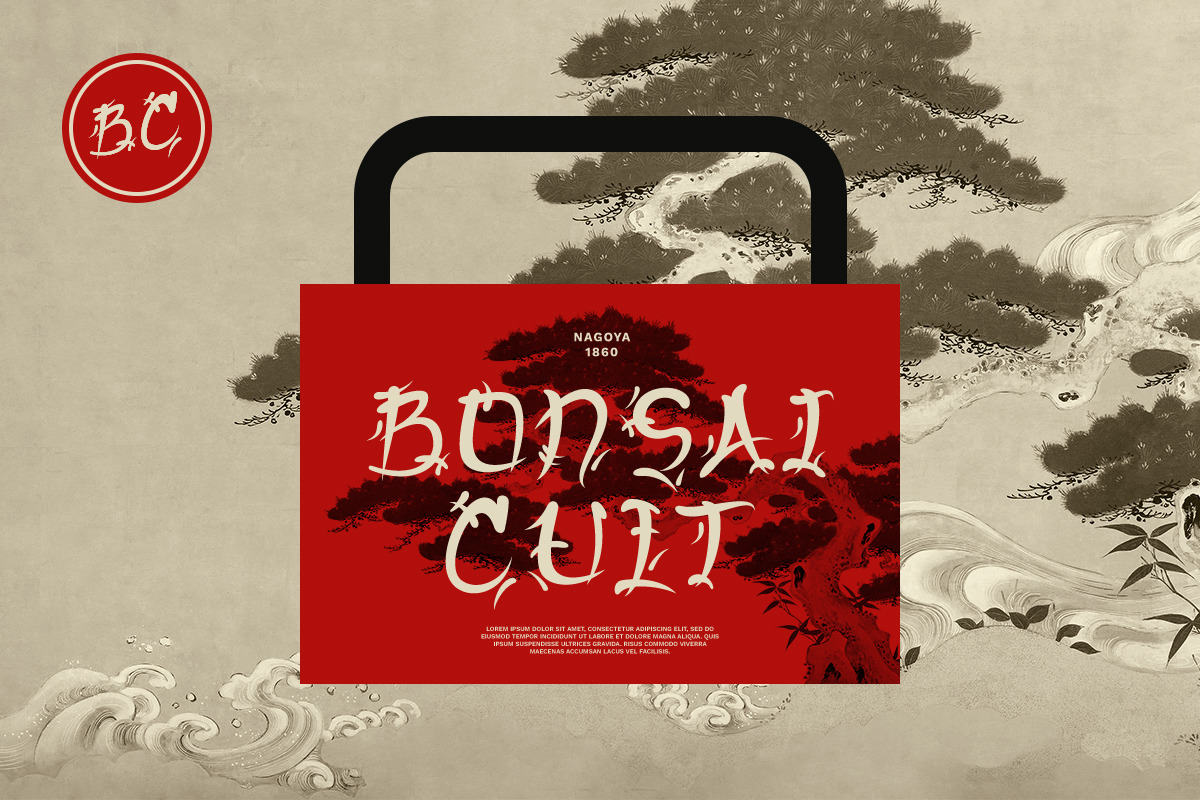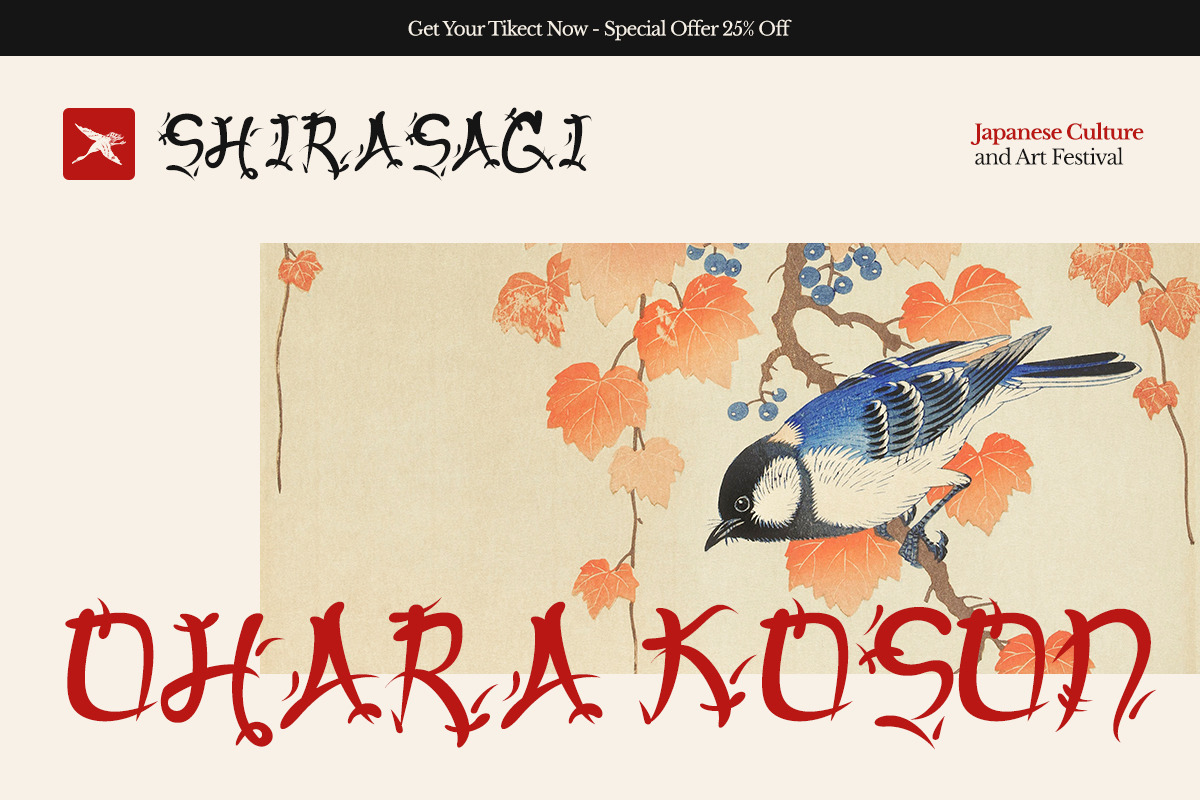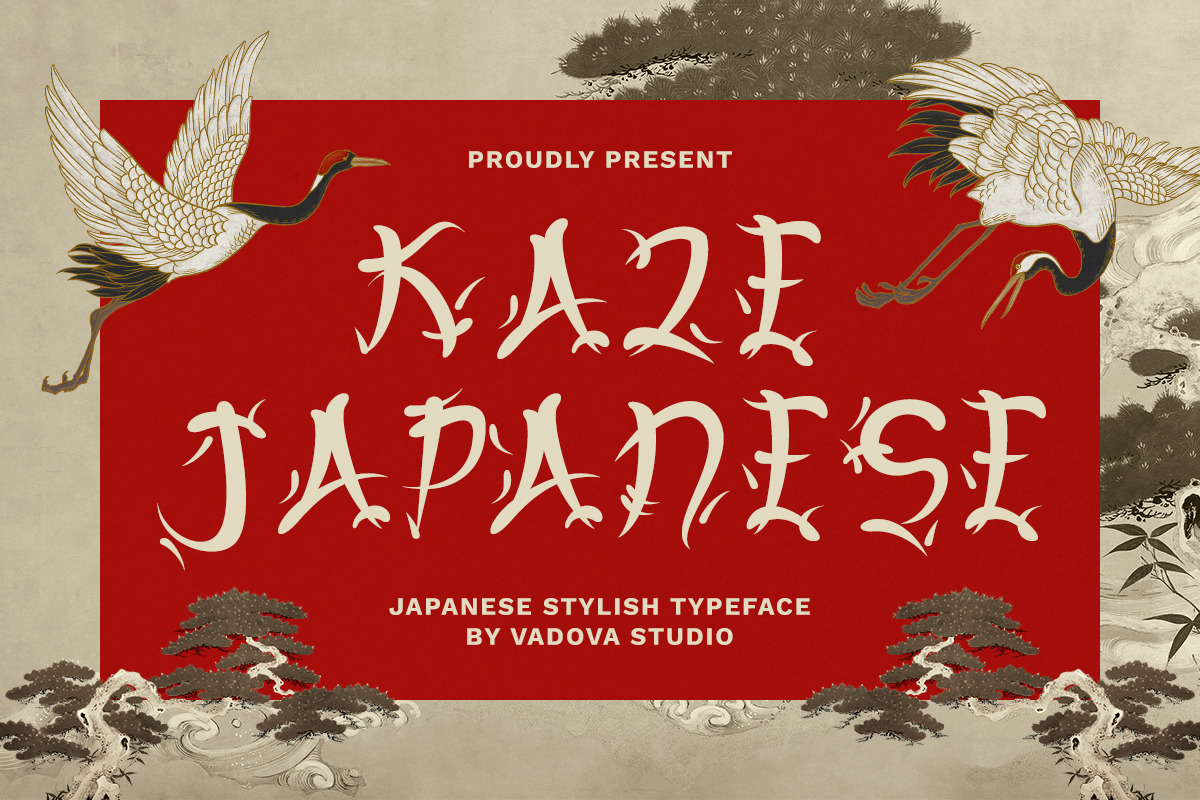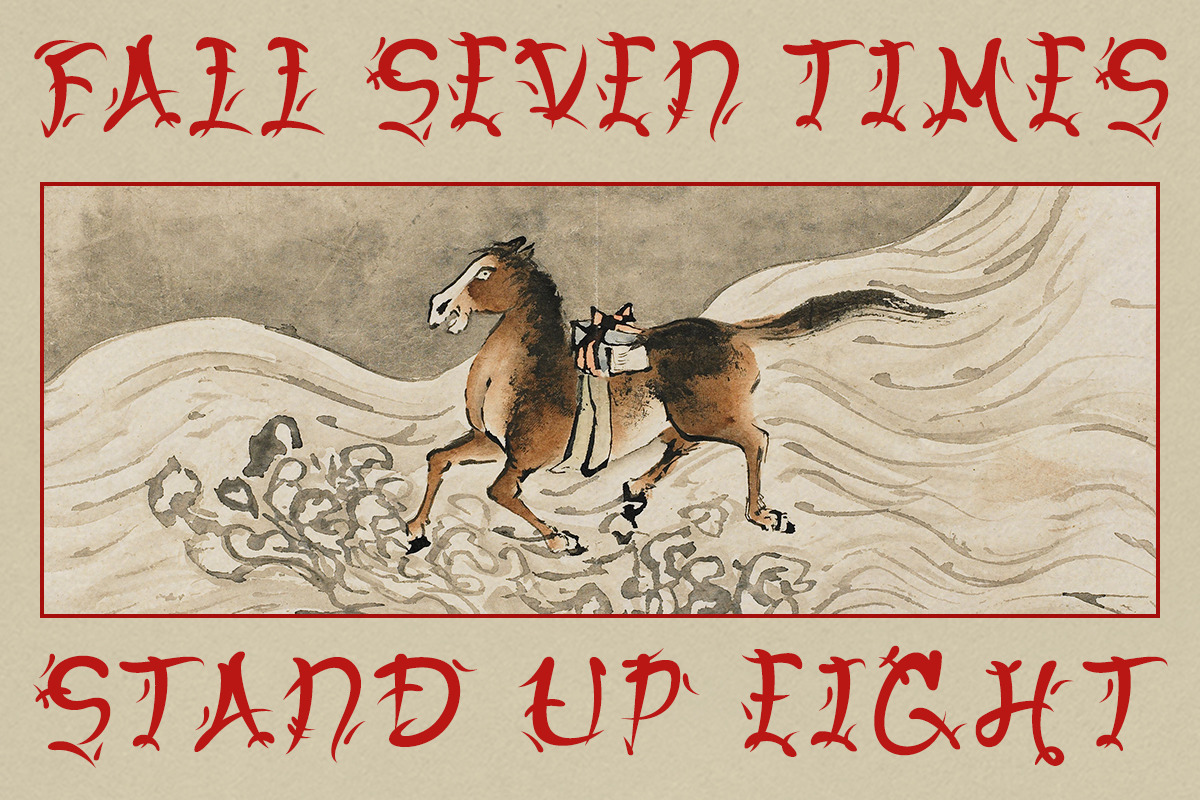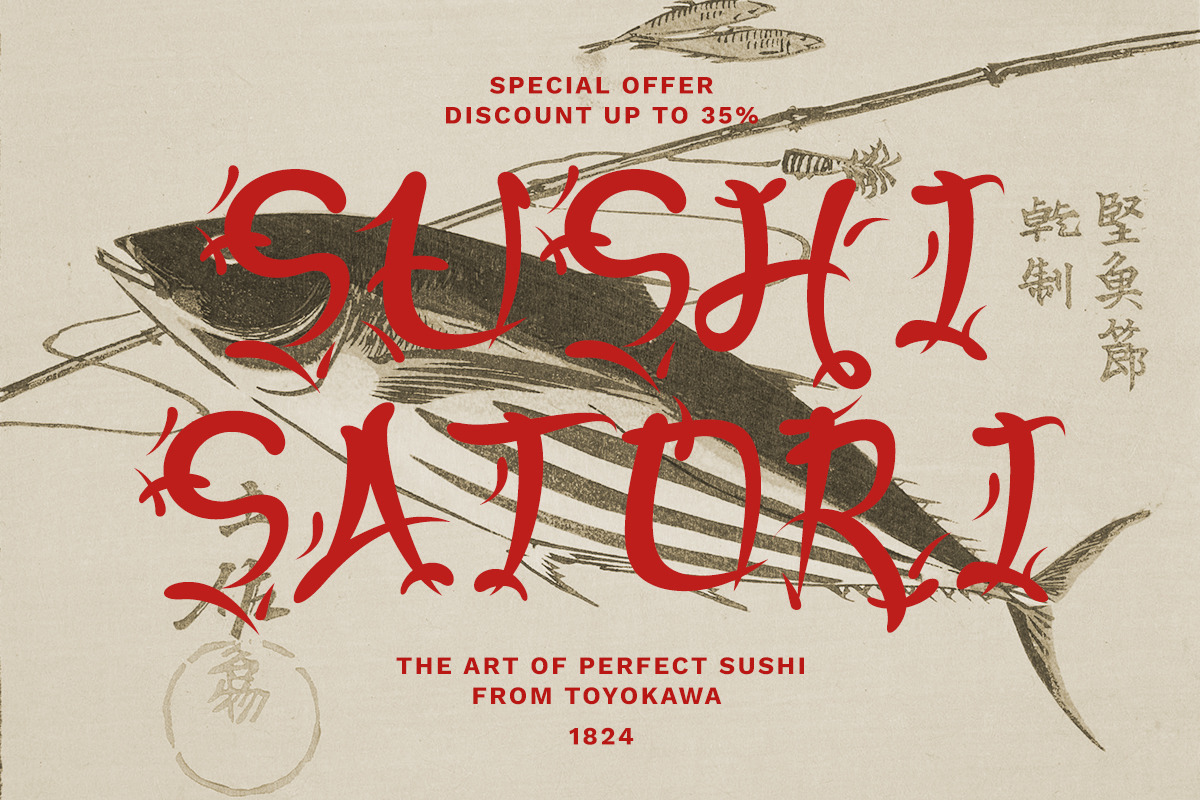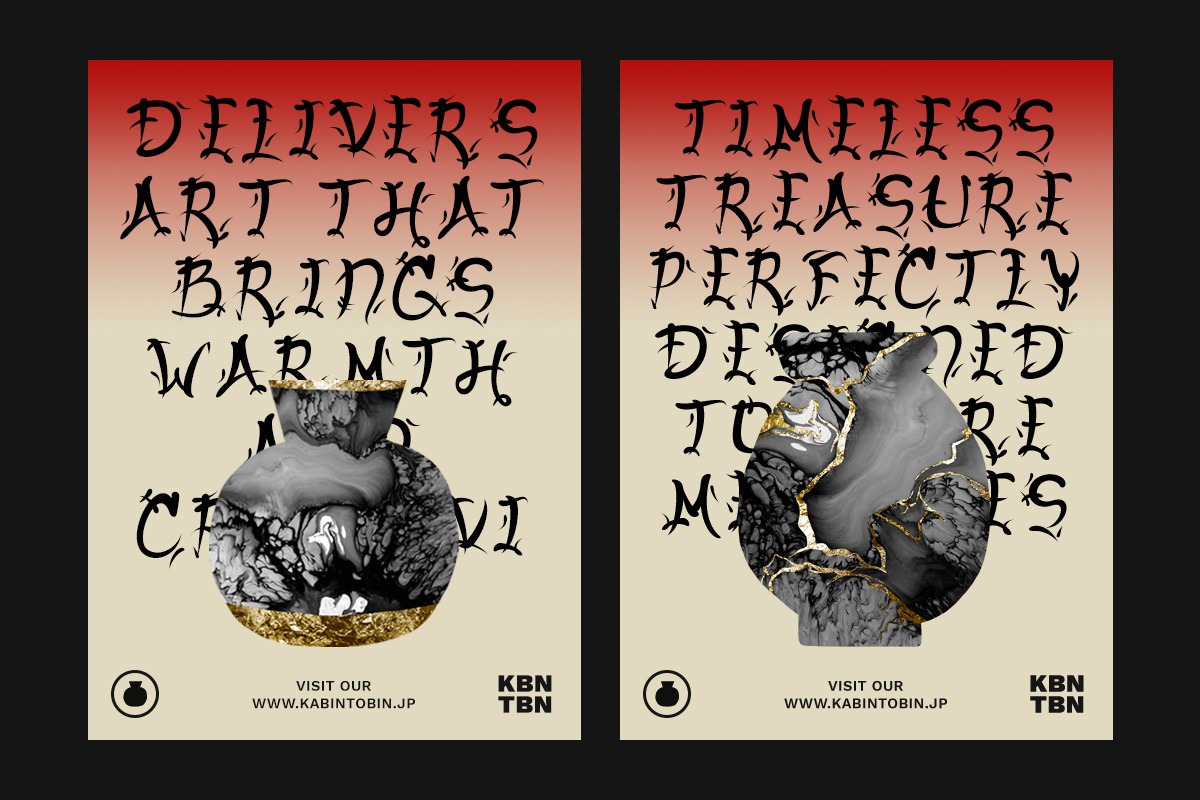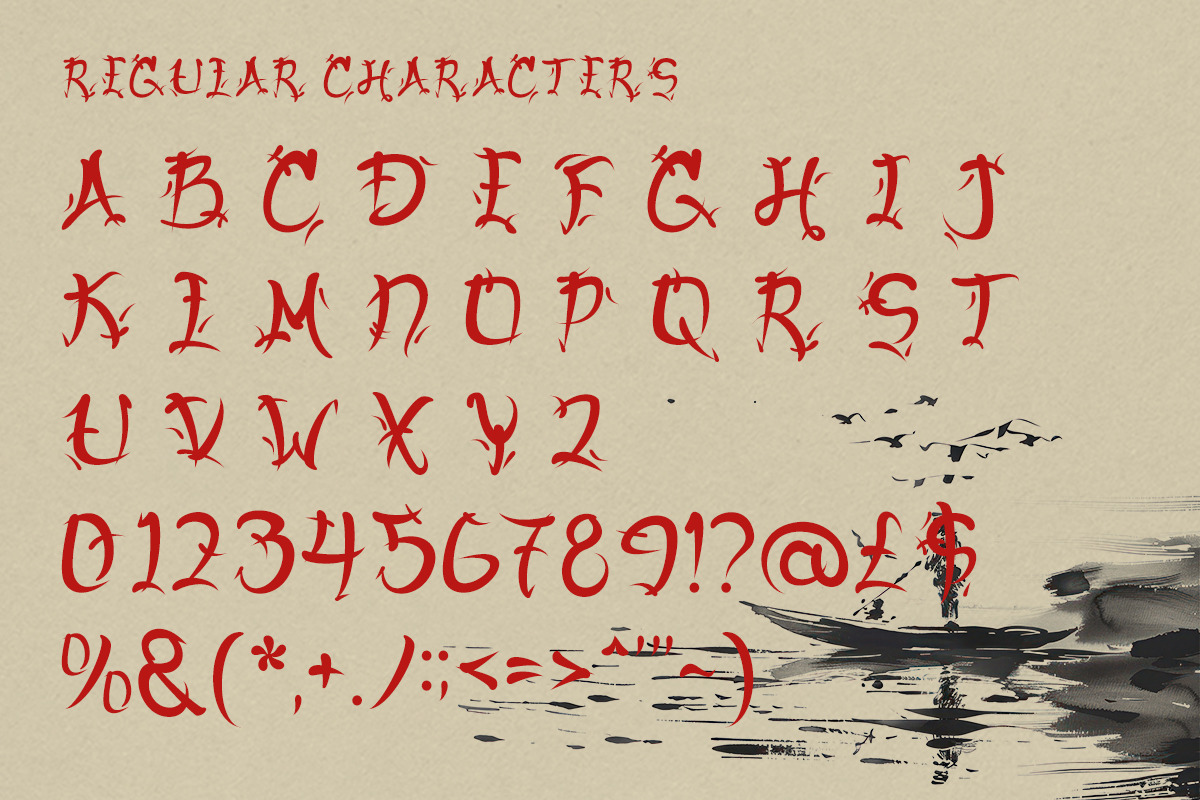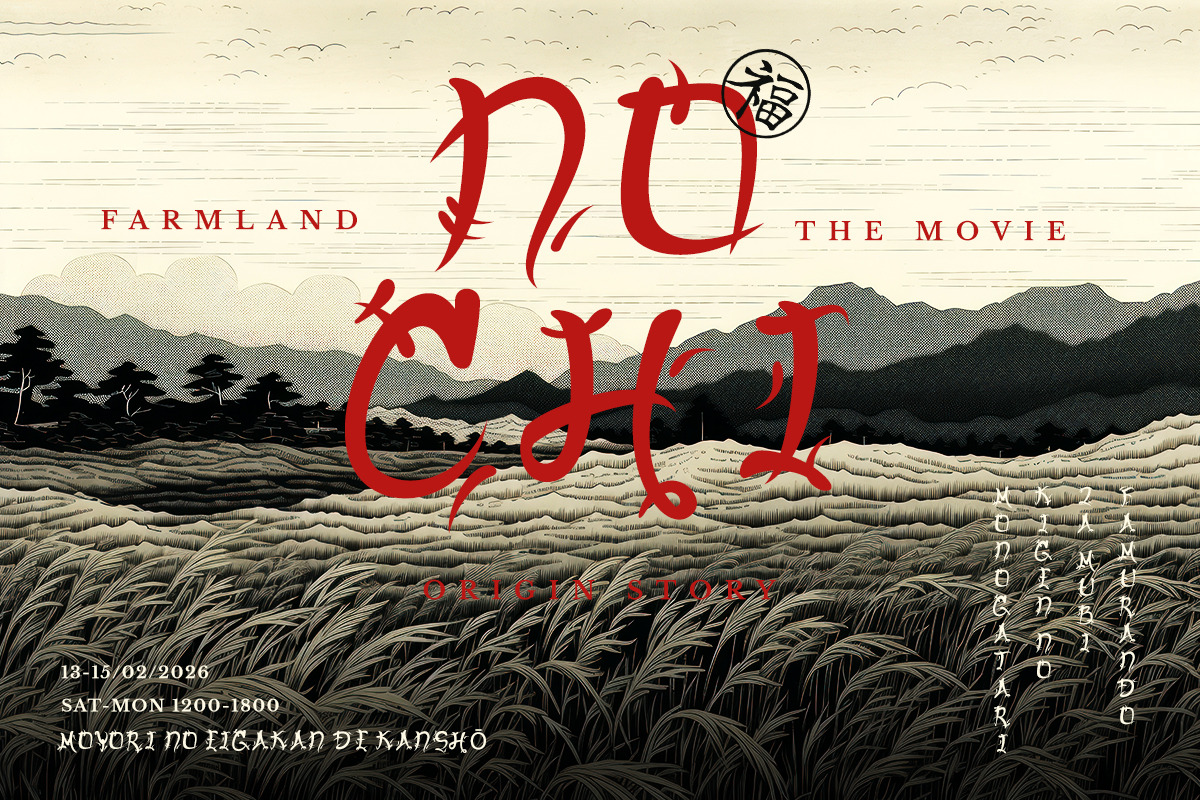
Kaze Japanese Asian Display Font
Kaze Japanese is an artistic Asian display typeface inspired by traditional Japanese calligraphy and brush movement. Its sharp curves and flowing strokes bring a balance of elegance and strength, embodying the essence of Japanese culture.
Perfect for creating oriental-themed branding, restaurant logos, cultural posters, or packaging design, Kaze Japanese delivers an authentic handcrafted look with a touch of modern refinement. Each character expresses motion and rhythm, making every word feel alive.
- Japanese-inspired display typeface with handcrafted brush details
- Elegant yet powerful stroke dynamics
- Includes uppercase letters, numerals, and punctuation
- Designed for headlines, logos, and cultural visual identities
- Great for Japanese restaurant branding, menus, posters, and packaging
- Ideal for themed festivals, apparel, and traditional artwork
- Combines authenticity and artistic flow for stunning typography
Relevance and Use Cases is perfect for Japanese branding, Asian cuisine packaging, cultural posters, sushi restaurant logos, art exhibitions, festival visuals, and oriental-inspired creative projects.